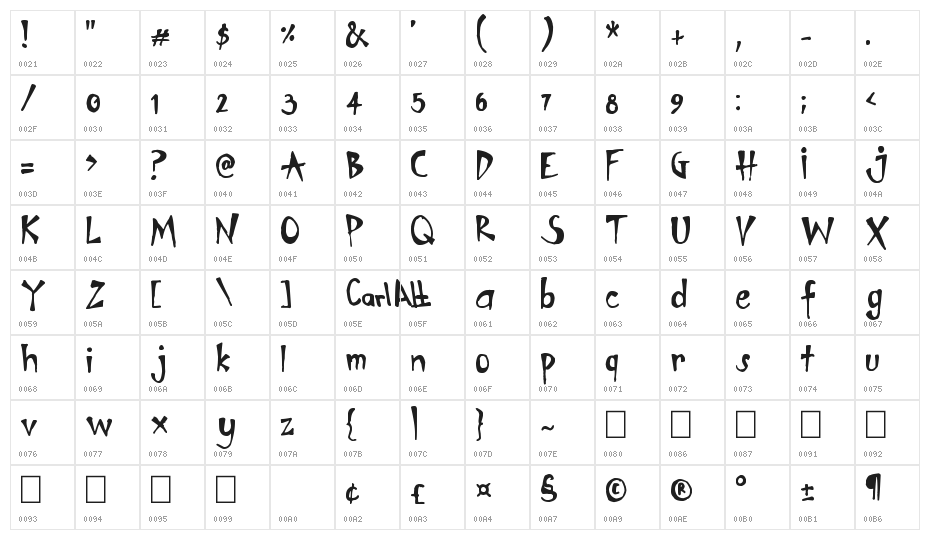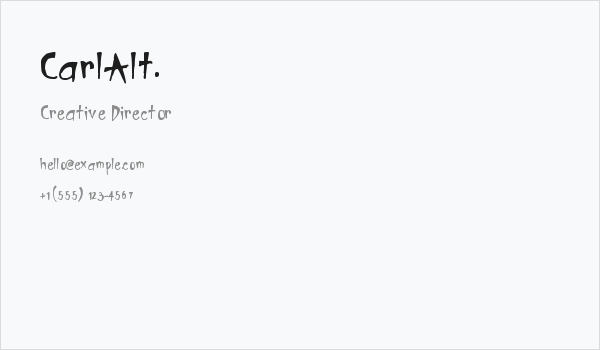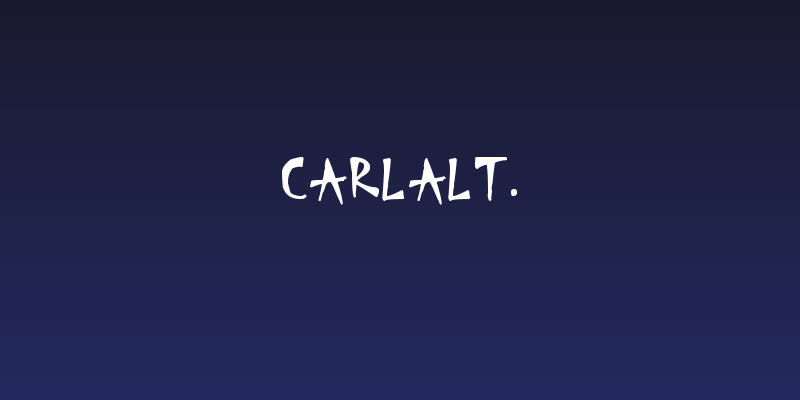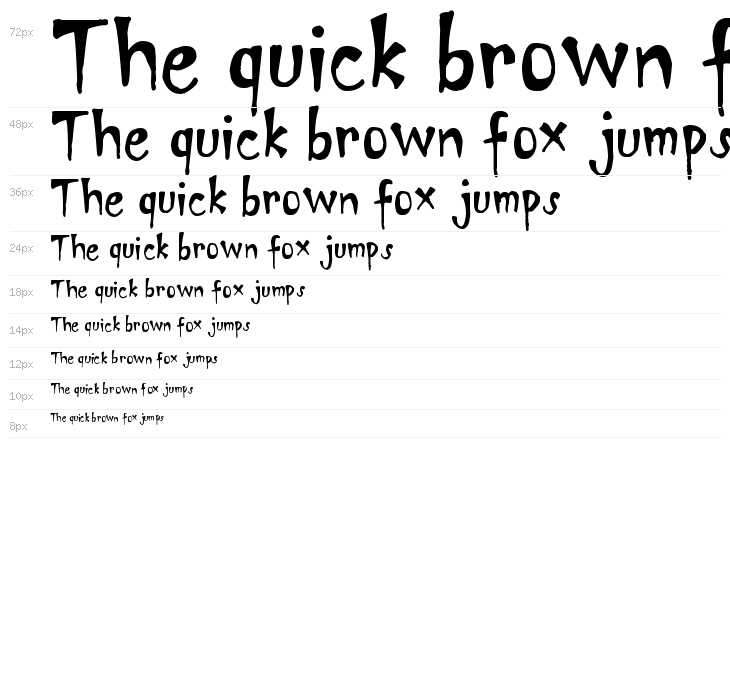
CarlAlt. Font
CarlAlt. Description
This font features a playful and dynamic style with a hand-drawn appearance. The letters are irregular and slightly tilted, giving them a whimsical and casual feel. The strokes are bold and uneven, adding to the organic and spontaneous look. The uppercase and lowercase letters maintain a consistent style, with rounded edges and varying stroke widths. Numbers and special characters follow the same playful design, making the font versatile for creative projects. The overall impression is lively and informal, perfect for adding a personal touch to any design.
| Proposed Projects | Ideal for children's books, greeting cards, playful branding, and creative posters. |